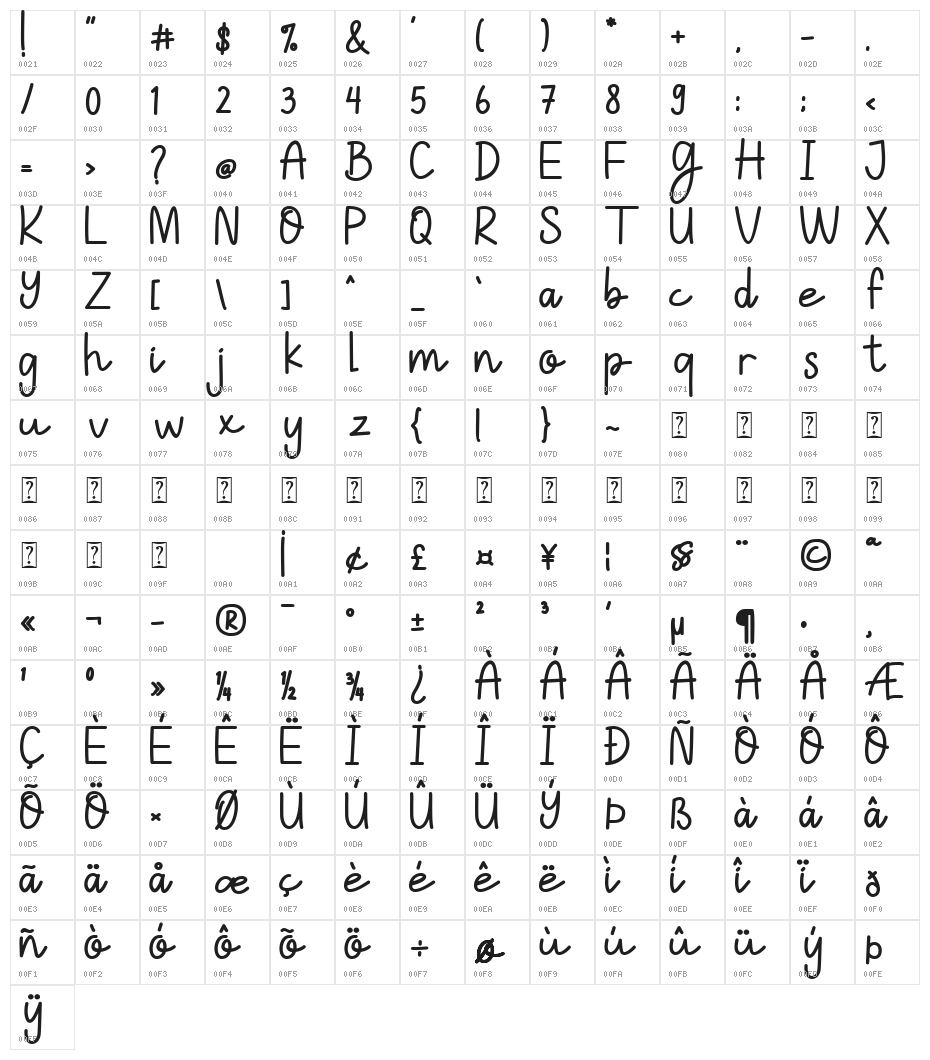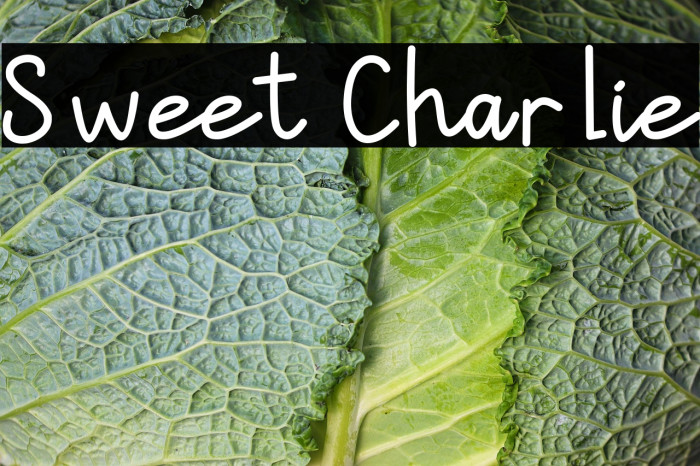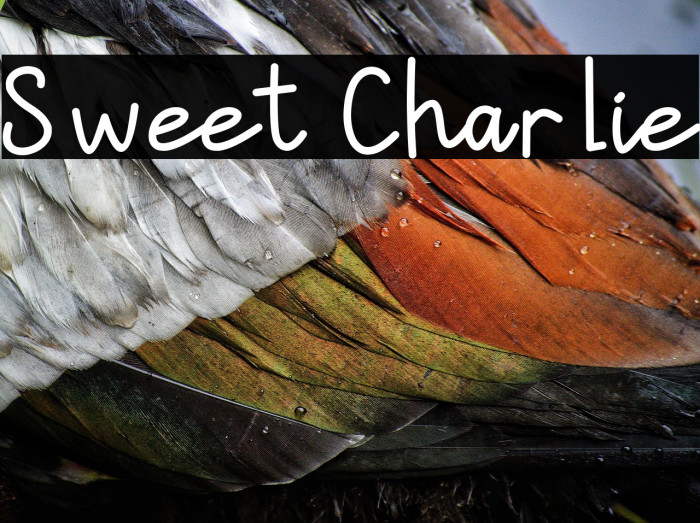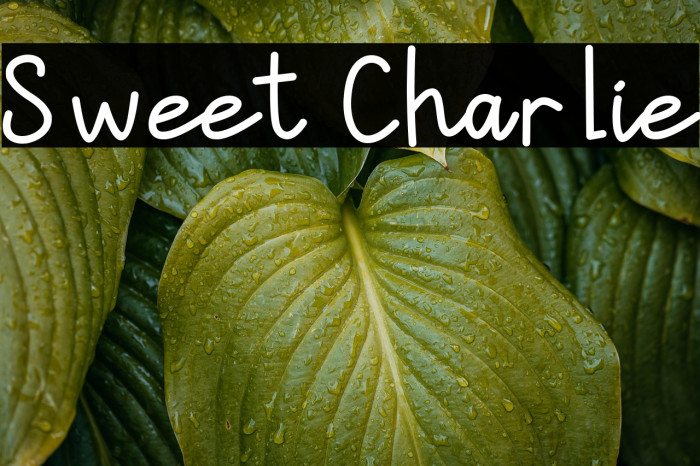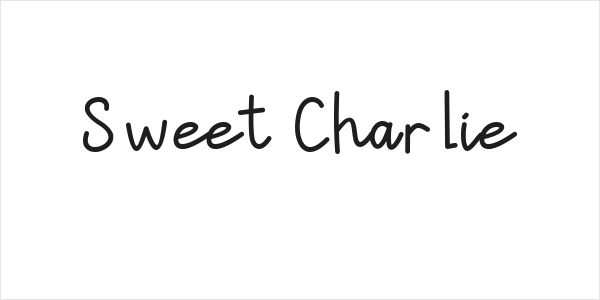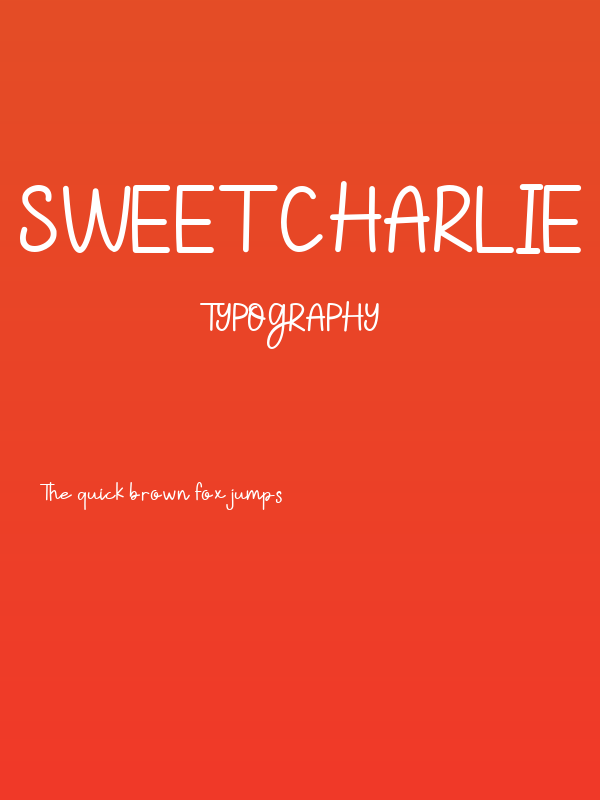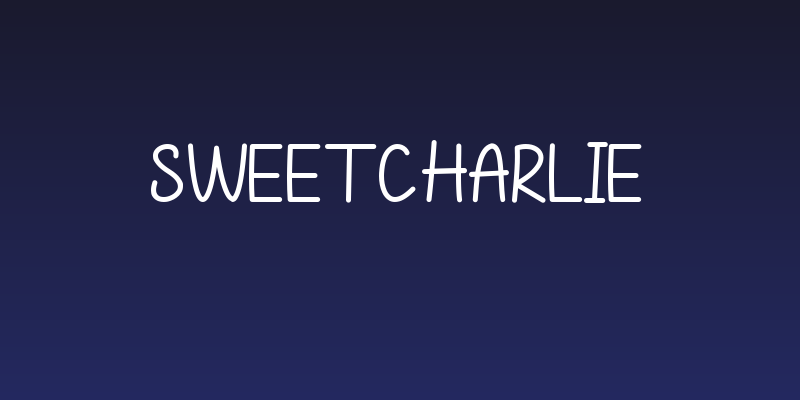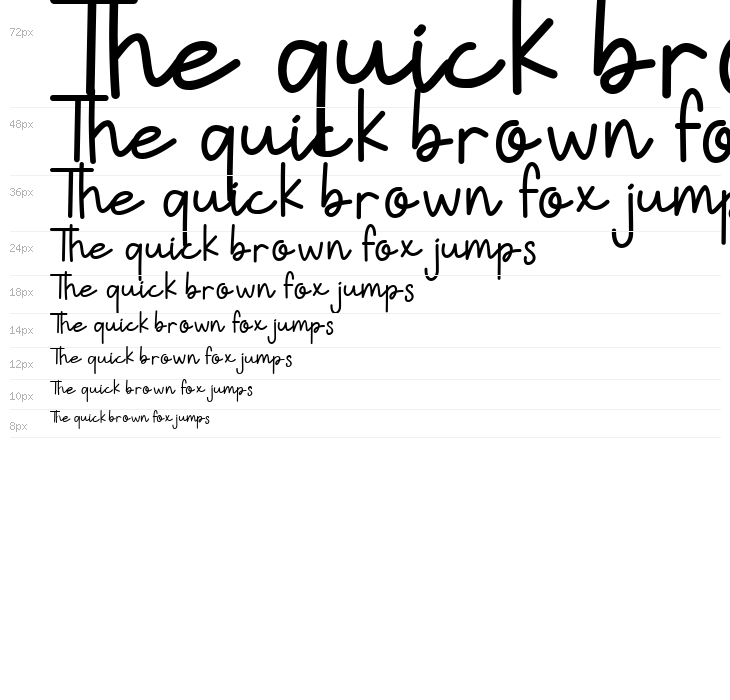
Sweet Charlie Font
Sweet Charlie Description
This font features a playful and casual handwritten style, characterized by its smooth, flowing lines and rounded edges. The uppercase letters are bold and slightly larger than the lowercase, which adds a dynamic contrast. The lowercase letters have a charming, informal appearance with a slight slant, giving the font a lively and approachable feel. The numerals are consistent with the overall style, maintaining the same rounded and friendly aesthetic. Special characters are well-integrated, ensuring versatility in various design contexts. This font is perfect for projects that require a personal touch, such as greeting cards, invitations, or playful branding.